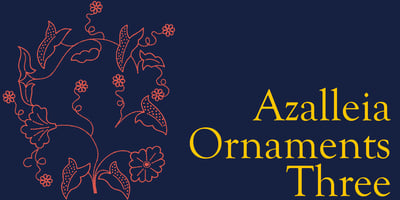
Azalleia
Azalleia font
Azalleia Font Family was designed by Iza W and published by Intellecta Design. Azalleia contains 4 styles and family package options. Azalleia is a new exaggerated flourished caps typeface. Well elaborated and unusual design, inspired by old cross-stitch and craft books. Works great when used for display artworks. Entirely designed by hand, without use of auto-tracing and available in two different designs. Buying the two fonts pack you get free the exclusive collection of Azalleia native colored eps vectors, zipped with the font and ready to use. Take a look at the banners in the gallery section to see samples of this nice collection of eps free vectors.